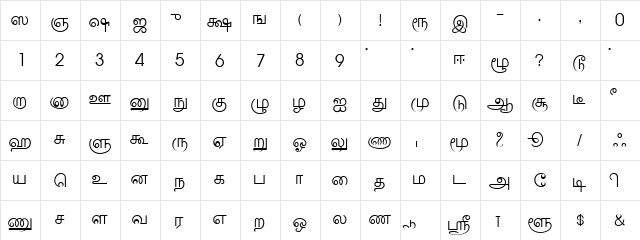
Amudham Normal Font Preview
Amudham Normal
Design Context for Amudham Typeface
Amudham is a composed and adaptable typeface that performs quietly and consistently across a wide range of design contexts.